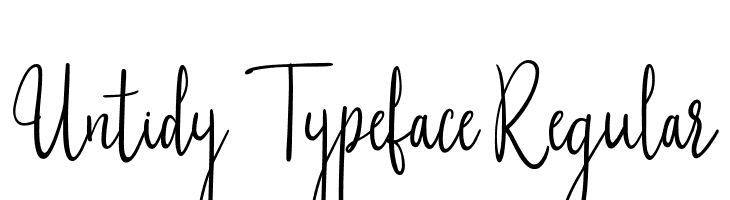
A flowing, cursive script font with elegant, connected letters.
A playful, informal handwritten typeface with fluid strokes.
A playful and casual script font with smooth, flowing lines and rounded edges.
An elegant script font with flowing, interconnected letters and luxurious flourishes.
A flowing, cursive script font with an elegant, handwritten style.
An elegant, flowing script font with decorative swashes.
A lively, fluid script font with elegant, flowing lines and a handwritten calligraphy style.
A graceful and elegant script font with flowing, connected letterforms.
An elegant script font with flowing, interconnected letters and refined style.
A playful, handwritten script font with a casual and fluid style.